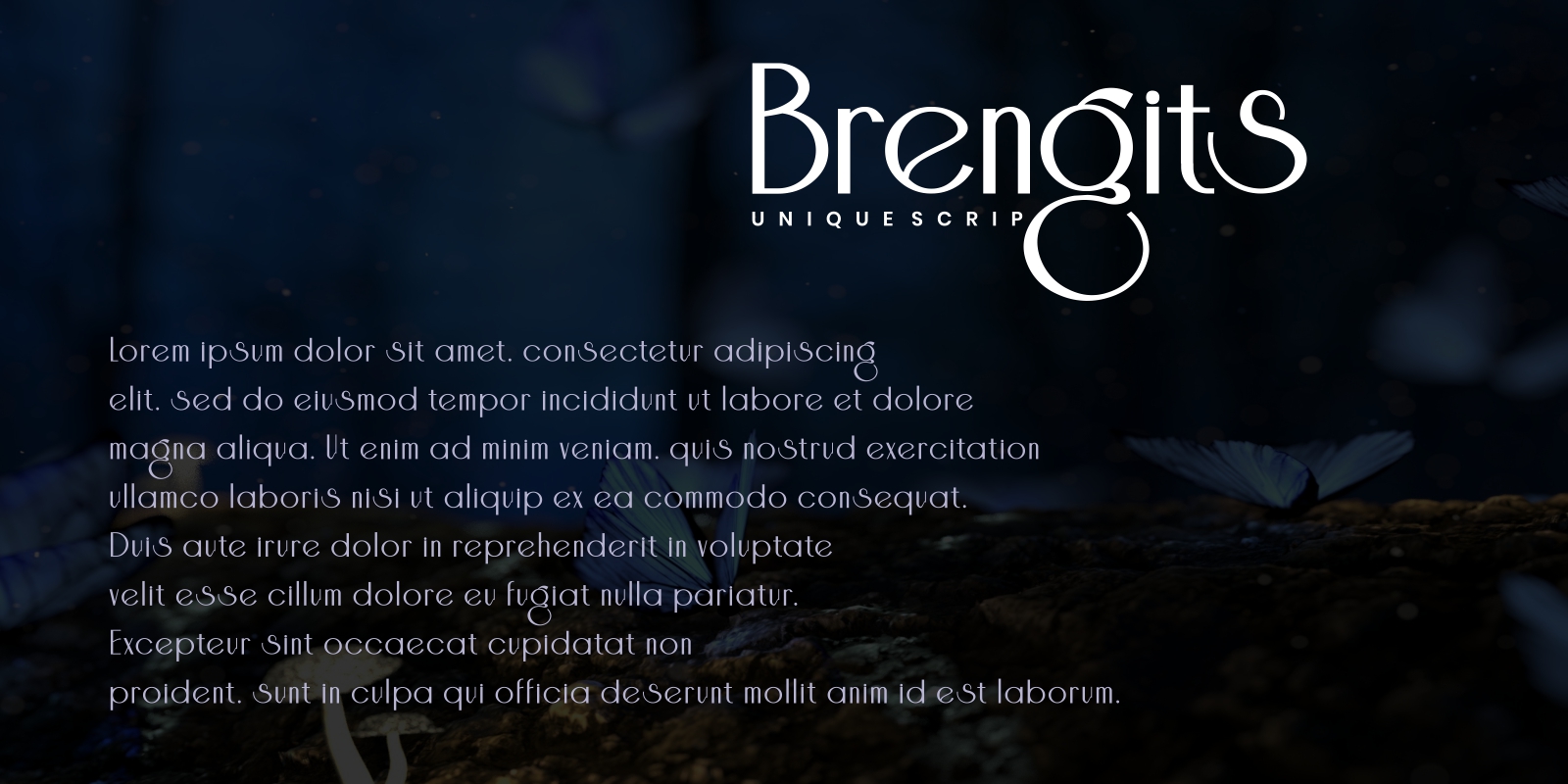
Brengits - Sans Serif Fonts
Introducing **Brengits**, a simple and modern sans serif font.
**Features**
+ Uppercase
+ Lowercase
+ Numerals
+ Punctuation